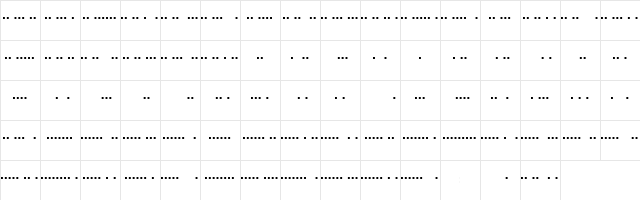
MC morse_Baudot_5_Unit Regular
| Designer | Marek Cerajewski |
MC morse_Baudot_5_Unit celebrates the constraints of early digital type, turning pixel geometry into a distinctive and immediately recognisable style.
Well-suited to indie game interfaces, retro computing aesthetics, and pixel art-adjacent design work.